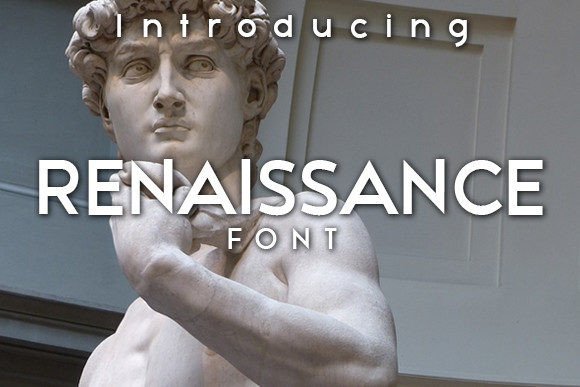
Looking for a unique and eye-catching font for your next design project? Look no further than Renaissance Font! Created by the talented designer vladimirnikolic, this Sans Serif font is sure to add a touch of class and sophistication to any project.
With its clean lines and elegant curves, Renaissance Font is the perfect choice for everything from posters and flyers to t-shirts and logos. Whether you're designing for a corporate client or a personal project, this font is sure to elevate your work and help it stand out from the crowd.
But what really sets Renaissance Font apart is its versatility. This font is just as at home in a modern, minimalist design as it is in a vintage or retro-inspired piece. And with its extensive character set, including all the accents and special characters you need for multilingual projects, this font is truly a must-have for any designer's toolkit.
But Renaissance Font isn't just functional - it's also downright beautiful. With its bold yet graceful letterforms and striking proportions, this font is sure to capture the attention of anyone who sees it. It's the perfect choice for designers who want to make a statement and leave a lasting impression.